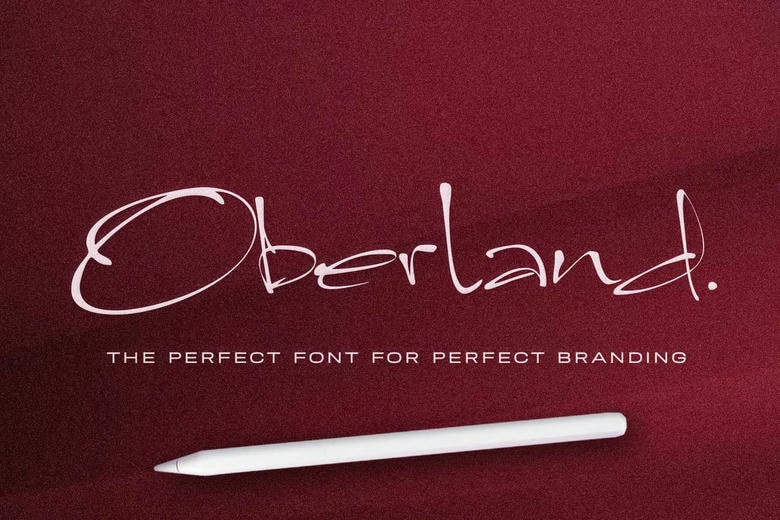
Oberland Font
Oberland is one such typeface, created out of the flaws, but glorifying the unrefined nature of each individual letter. Every glyph is purposefully rough, having its rhythm, its imperfections and outliers that need to be noticed and create interest. The strokes are confident and unrefined and are created not to replicate the perfection but to represent freedom and naturalness. The letters themselves are frail and incomplete, but when they are joined together as words and sentences, they resonate with each other in a way that is potent, unifying and memorable.
Oberland shows that perfection is not in perfection, but in the combination of the imperfection, in harmonizing the rough strokes into harmony, in the subjecting of individuality into harmony. An excellent option where the designer expects to be innovative, Oberland is a unique voice to branding, logos, photography quotes, hand-made products, cosmetics, boutiques, crafts, banners, book titles, and so on. This typeface brings a touch of originality and genuineness where it is required, which is impressive and stylish.
Oberland Handwritten Script Font